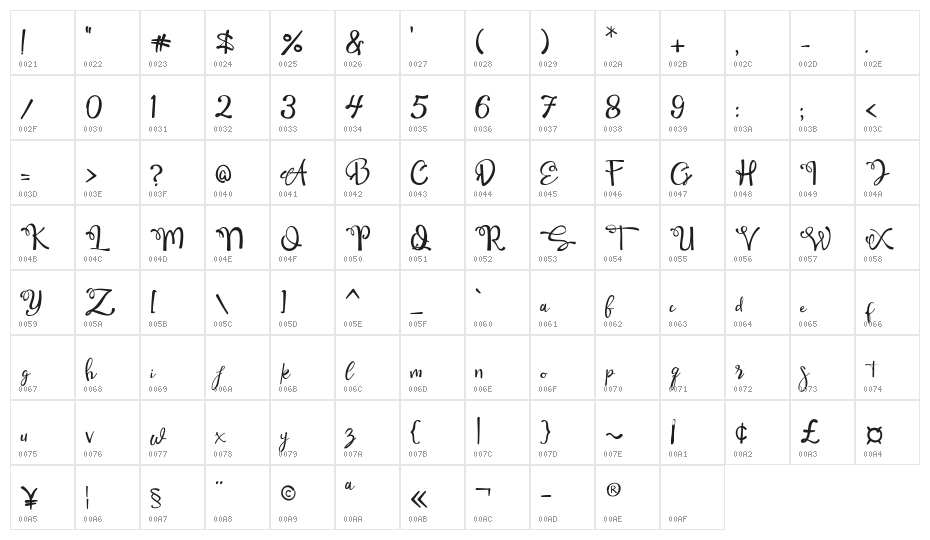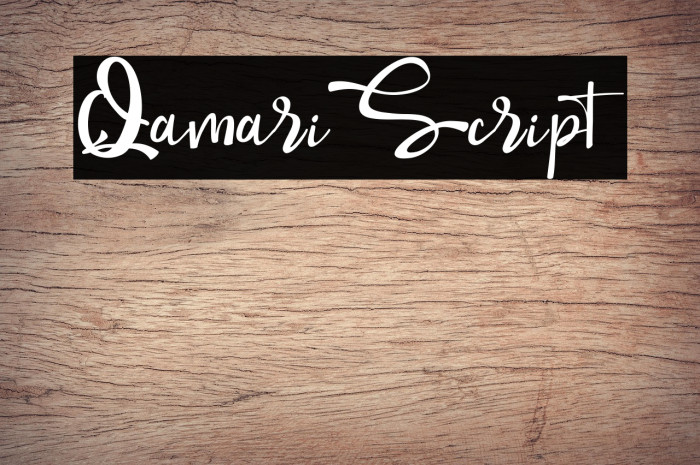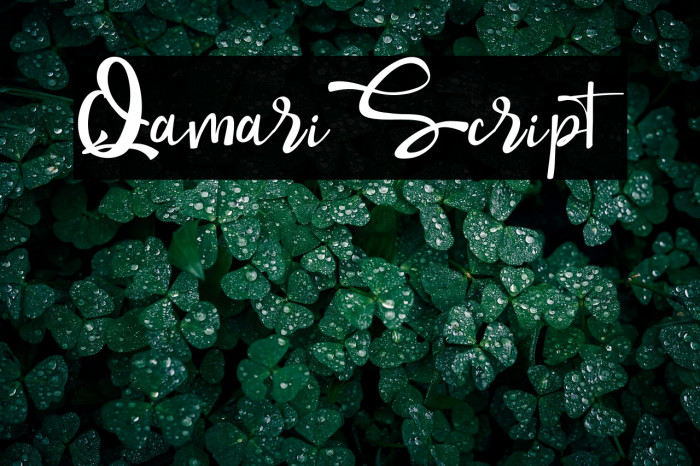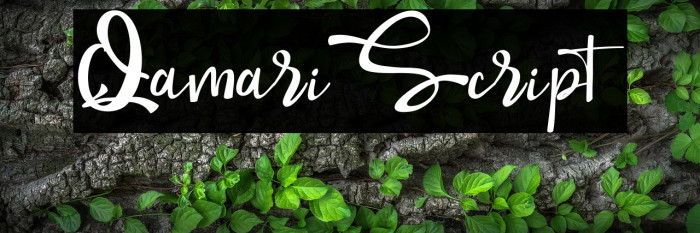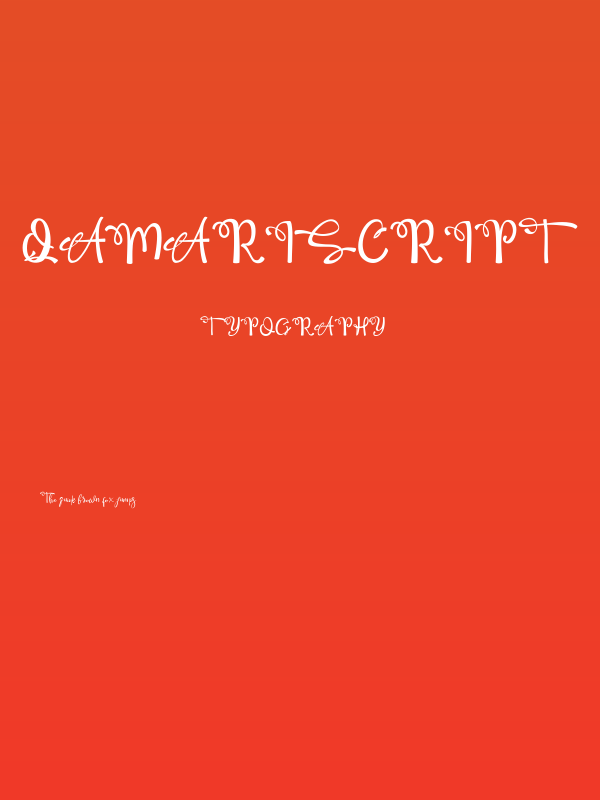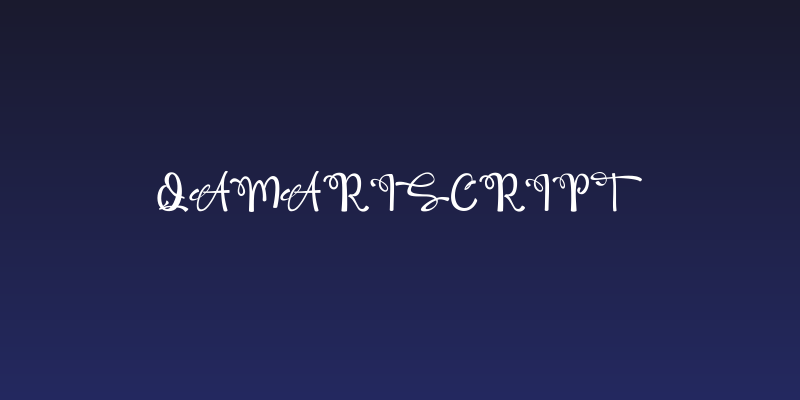
QamariScript Font
QamariScript Description
This font features a whimsical and artistic script style, characterized by its flowing, interconnected letters and playful loops. The uppercase letters are bold and ornate, with decorative swirls that add a touch of elegance and flair. The lowercase letters maintain a consistent fluidity, enhancing the font's overall cohesive appearance. Numbers and special characters are designed with the same artistic flair, ensuring a harmonious look across all text elements. This font is ideal for creative projects that require a personal and artistic touch.
| Use Case | Logos, Invitations, Artistic projects |
| Proposed Projects | Ideal for wedding invitations, greeting cards, branding, and artistic posters. |